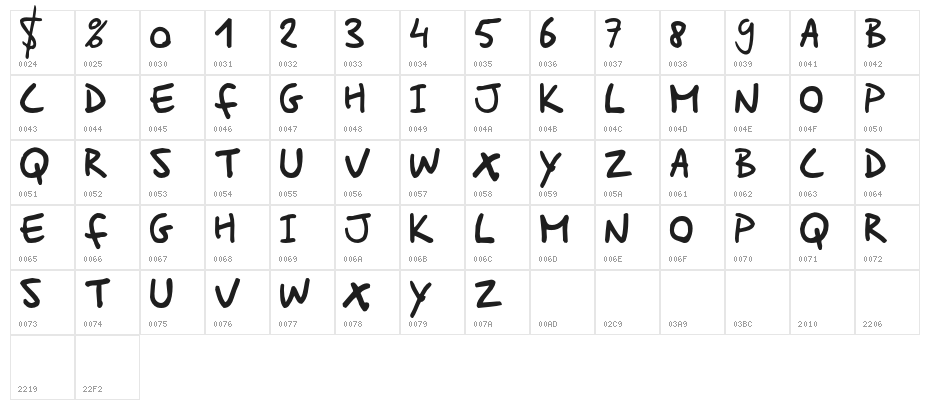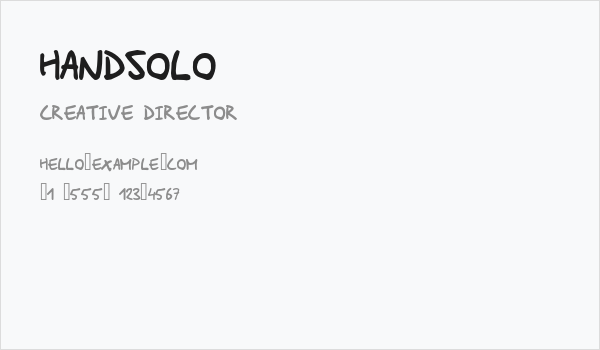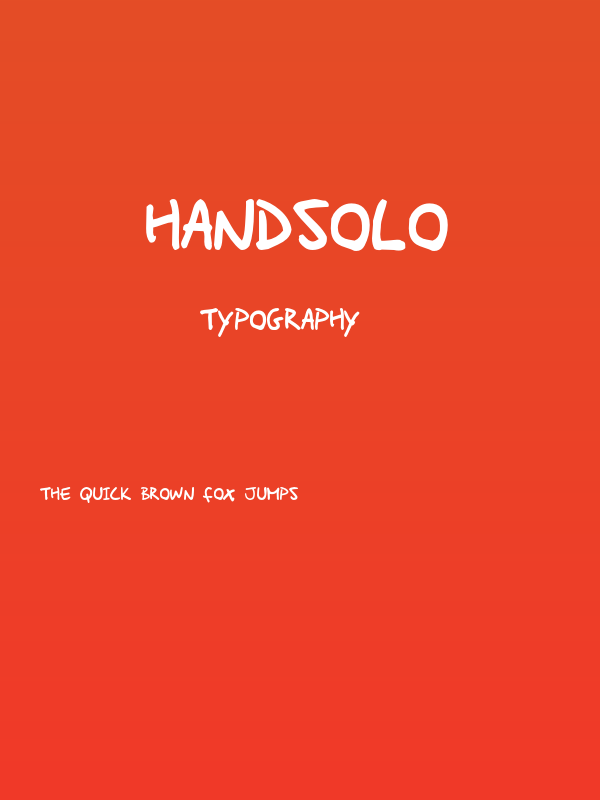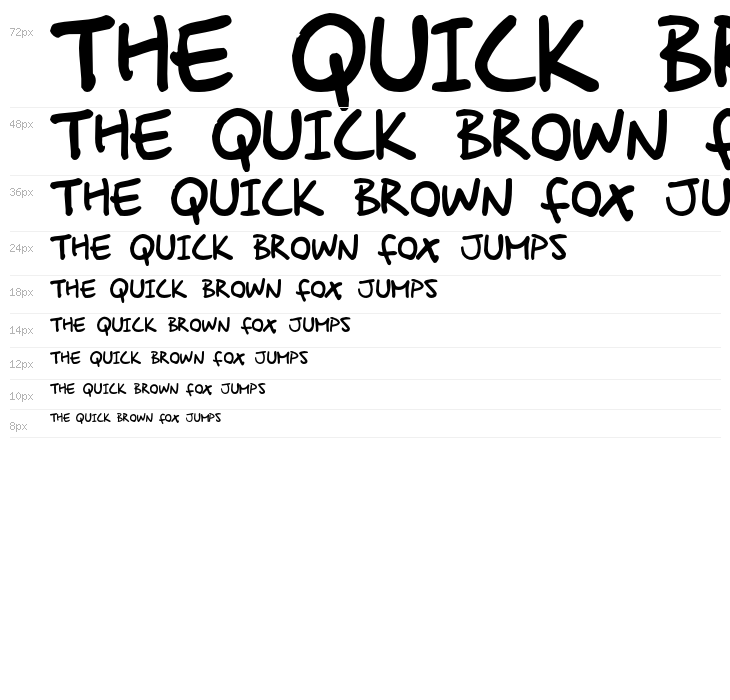
HandSolo Font
HandSolo Description
This font features a playful, handwritten style that exudes a casual and friendly vibe. The characters are bold with a consistent stroke width, giving them a strong presence on the page. The letters are slightly slanted, adding a dynamic and informal touch. The spacing between characters is relatively tight, which enhances the cohesive look of the text. This font includes a full set of uppercase and lowercase letters, numbers, and a selection of special characters, making it versatile for various uses. Its informal style is perfect for projects that require a personal or creative touch.
| Overall Style | Casual, Playful |
| Use Case | Headlines, Informal Text, Creative Projects |
| Proposed Projects | Ideal for greeting cards, children's books, casual branding, and social media graphics. |